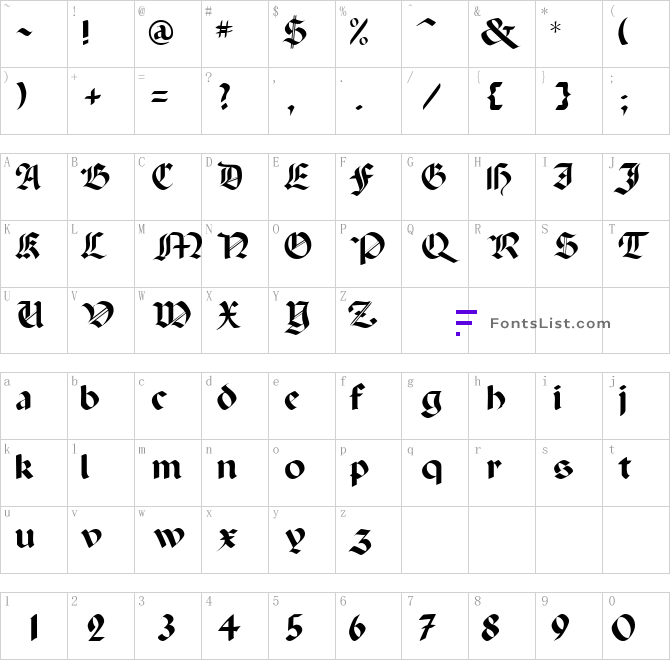
- Font Name:BallistaDisplayScriptSSK
BallistaDisplayScriptSSK.ttf is a very beautiful artistic font, BallistaDisplayScriptSSK.ttf is widely used in the design and printing of various books and pictures,BallistaDisplayScriptSSK.ttf has a strong visual impact,BallistaDisplayScriptSSK.ttf is a commonly used font in newspapers, magazines and books, and is used in posters, e-commerce Poster design, store design, logo design, font design and other fields.BallistaDisplayScriptSSK.